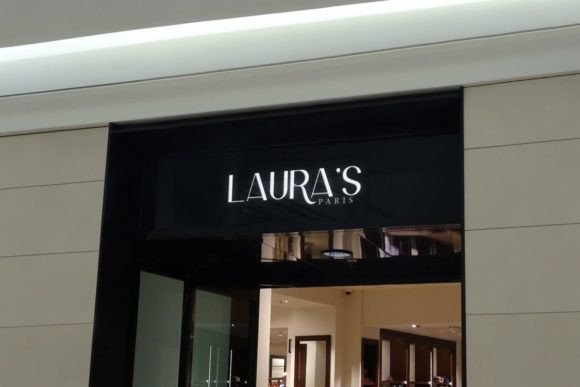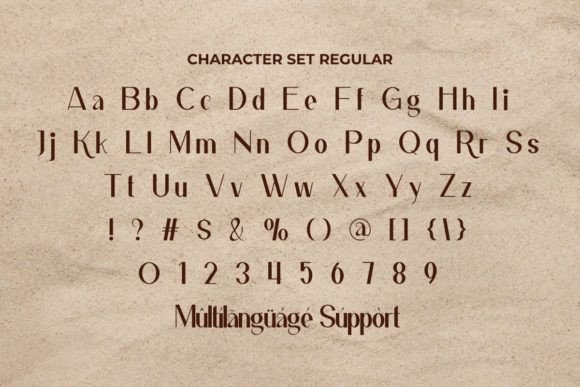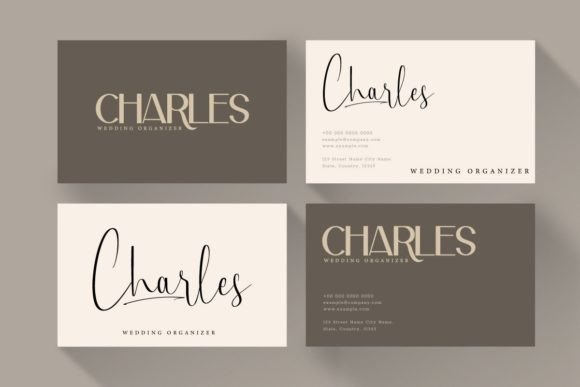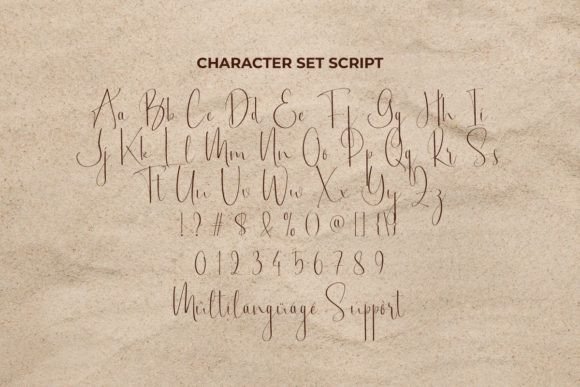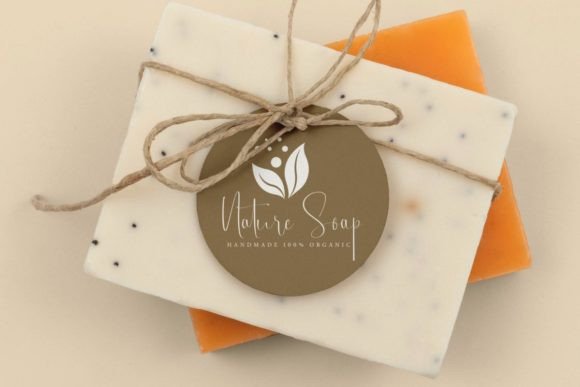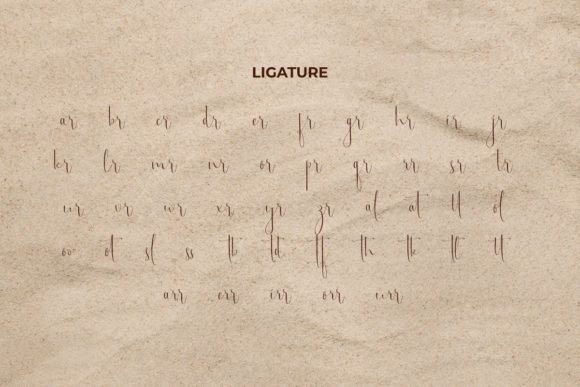
Unleash the Beauty of Brittany Rays Duo Font
Have you ever stared at a blank canvas, feeling the urge to create something breathtakingly beautiful? As designers, we’ve all been there – searching for that perfect combination of elegance and sophistication to elevate our designs to the next level. That’s exactly where the Brittany Rays Duo Font comes in – a stunning and elegant font duo that brings together two distinct styles to create a visual masterpiece.
This versatile font duo is not just a pretty face; it’s a powerful tool for designers. With the Brittany Rays Duo Font, you can create a wide range of designs, from wedding invites and business cards to shop signage and homepages. Its unique blend of styles makes it an invaluable asset for any designer looking to add a touch of sophistication and elegance to their work.
Brittany Rays Duo Font Key Features
• Unique Characteristics: A unique duo font system that combines two fonts in one, offering a wide range of stylistic sets and ligatures to create a distinctive and elegant look.
Brittany Rays Duo Font Review
First off, I’d like to say that I was thoroughly impressed with the ✨ unique aesthetic of Brittany Rays Duo Font. It’s clear that the designer put a lot of thought into creating a font that’s both elegant and modern. The font’s versatility makes it suitable for a wide range of projects, from logos to digital interfaces.
Some of the standout features of Brittany Rays Duo Font include:
• ✨ Beautiful, intricate details that add depth and character to the font.
• ✨ Excellent legibility, making it easy to read even at small font sizes.
• ✨ A wide range of language support, ensuring it can be used for international projects.
However, I do have a few concerns about ⚠️ some of the font’s limitations. For example:
• ⚠️ The font may be too ornate for some projects, potentially overpowering the content.
• ⚠️ The font’s file size is relatively large, which may be a concern for developers who need to optimize their projects.
Overall, I think Brittany Rays Duo Font is a solid choice for designers looking to add some flair to their projects. While it may not be suitable for every project, it’s definitely worth considering for those who want to make a statement.
Tips for Getting the Most Out of Brittany Rays Duo Font
Here are some tips for getting the most out of Brittany Rays Duo Font:
• Use the font in conjunction with other decorative fonts for a unique look.
• Experiment with different font sizes and colors to create visual interest.
• Use the font in titles and headings to draw attention.
Brittany Rays Duo Font is commonly used in:
• Wedding invitations and stationery.
• Event marketing materials.
• Branding and logo design.